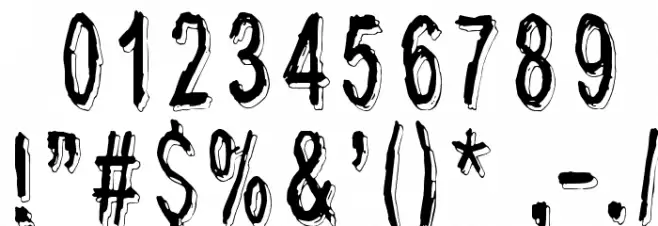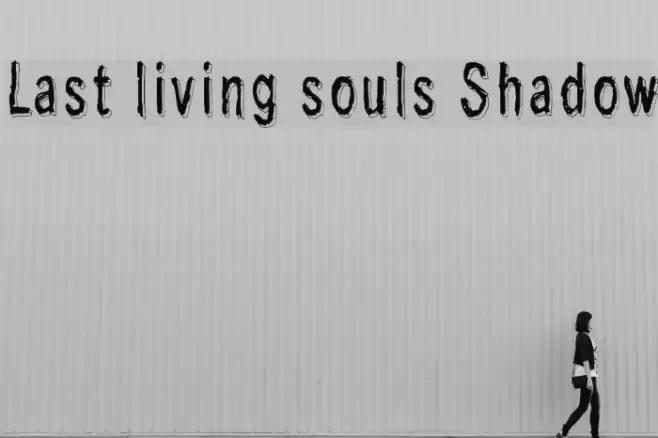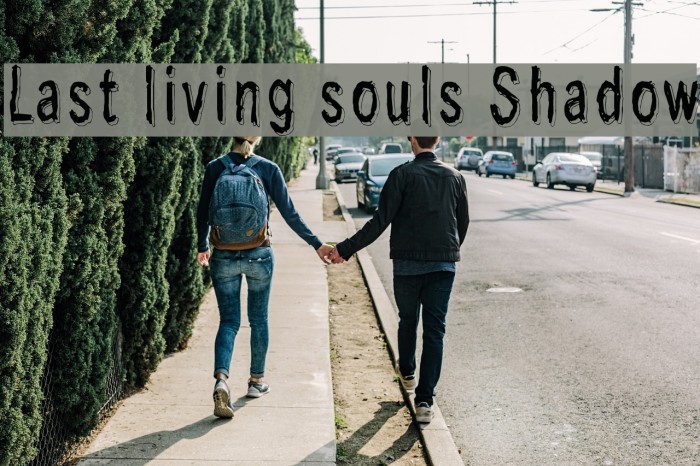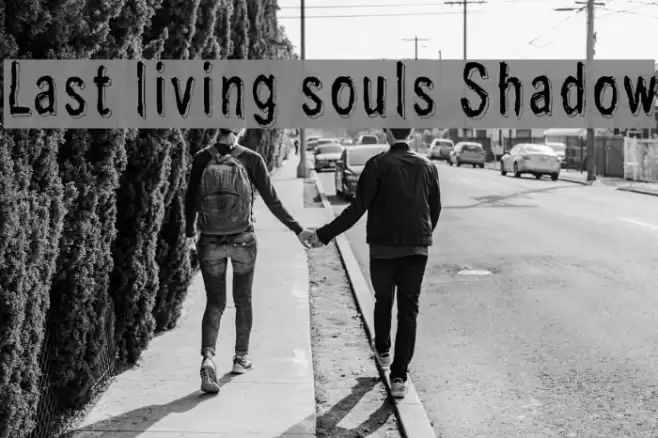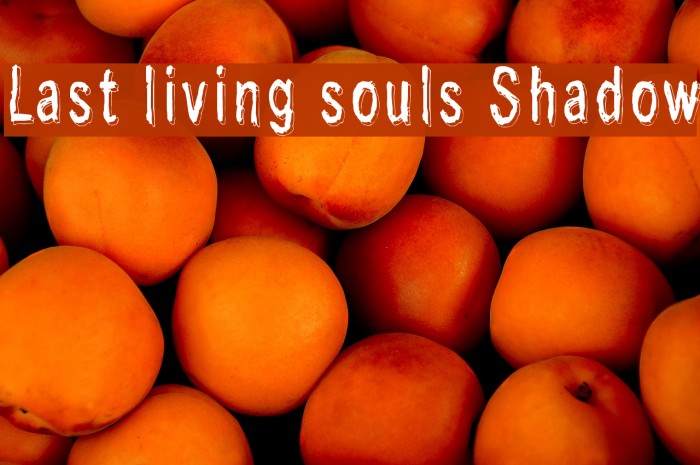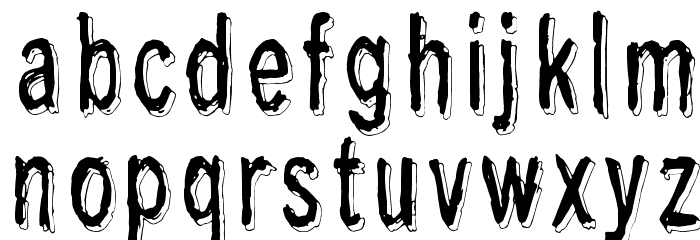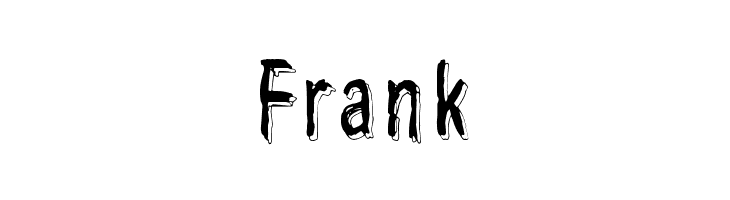
Last living souls Shadow Font
Last living souls Shadow Description
This font features a bold, hand-drawn style with a shadow effect that gives it a three-dimensional appearance. The letters are irregular and have a rough, sketch-like quality, adding a sense of dynamism and energy. The uppercase and lowercase letters maintain a consistent style, with the shadow providing a unique depth. Numbers and special characters are included, following the same design principles. The font's playful and artistic nature makes it stand out, ideal for projects that require a creative and informal touch.
A bold, hand-drawn font with a shadow effect and sketch-like quality from Distorted Eroded fonts.
• Proposed Projects: Ideal for posters, album covers, comic books, and creative branding projects.